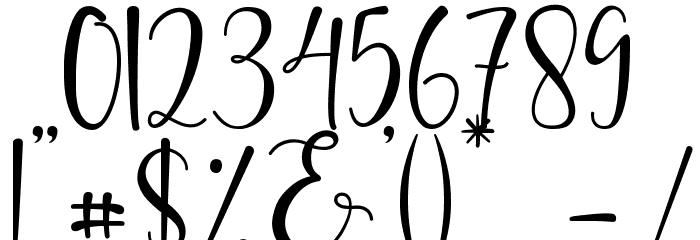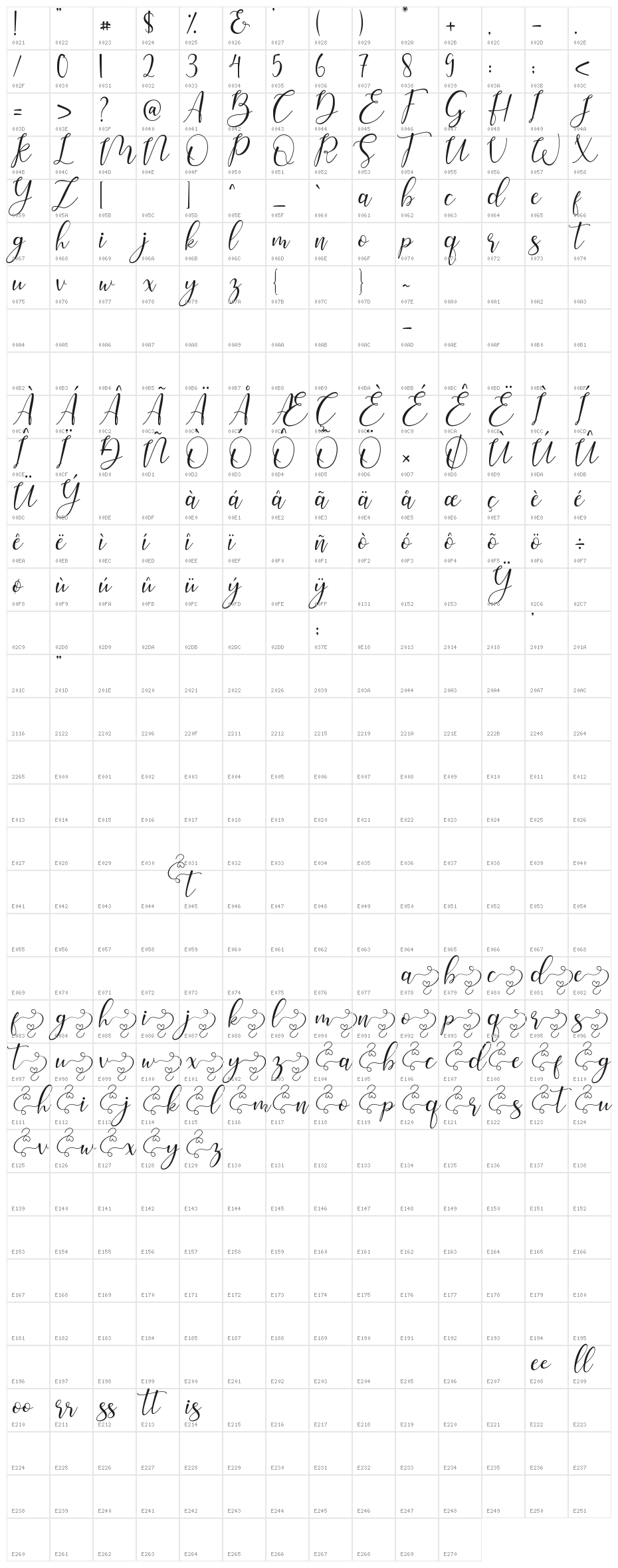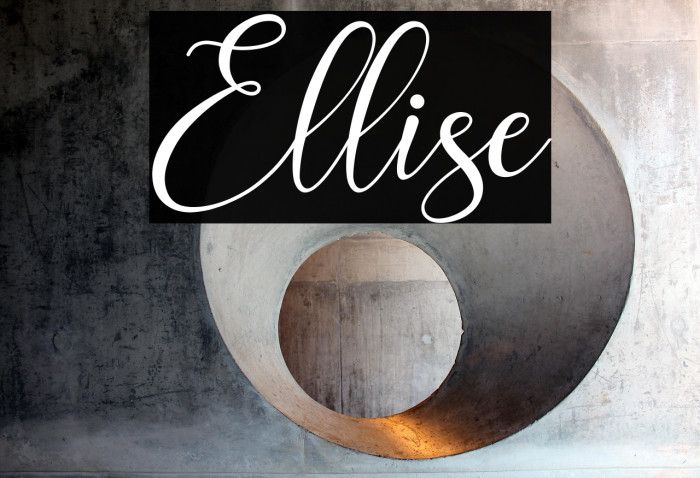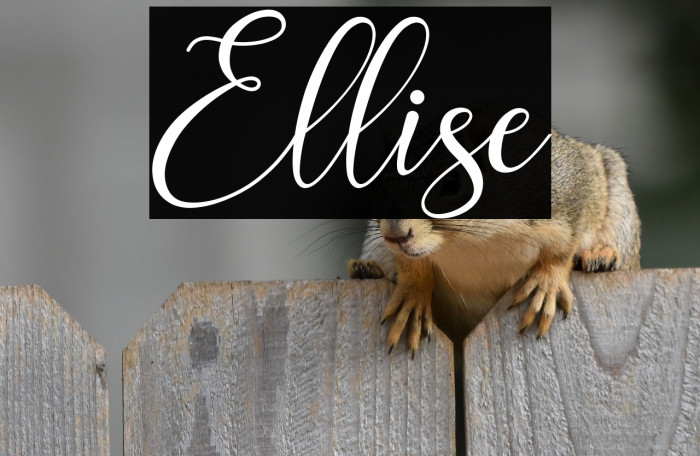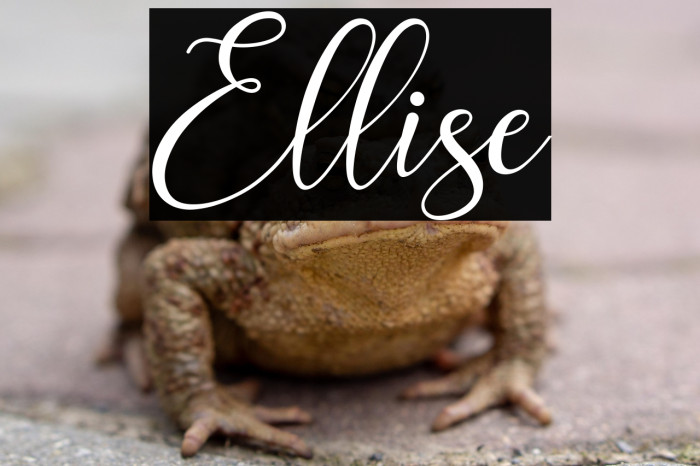
Ellise Font
Ellise Description
This font features an elegant and flowing script style, characterized by its smooth, cursive letterforms that exude a sense of sophistication and grace. The uppercase letters are tall and slender, with sweeping curves and loops that create a sense of movement and fluidity. The lowercase letters maintain a consistent style, with delicate connections between characters that enhance the overall cohesiveness of the text. The numerals are distinct and easy to read, while the special characters complement the script style with their own unique flair. This font is ideal for projects that require a touch of elegance and refinement.
| Proposed Projects | Wedding invitations, elegant branding, greeting cards, personal stationery, and upscale packaging. |